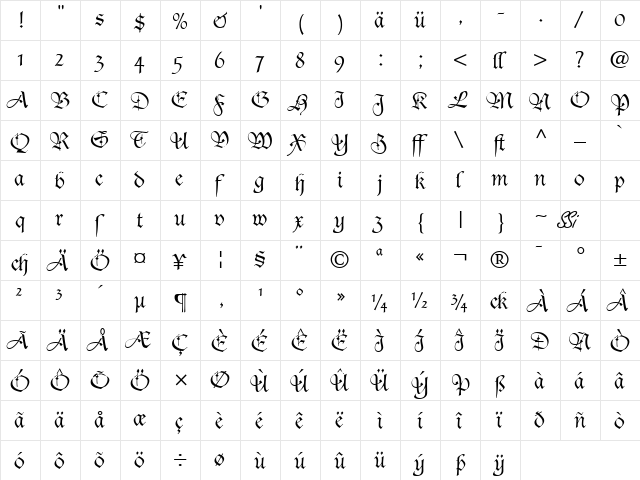
Tudor Script Light SSi Light Font Preview
Design Context for Tudor Script Light SSi Typeface
Tudor Script Light SSi brings a calligraphic fluidity to the page — its connecting strokes and expressive curves give it an unmistakably human quality. Its slender proportions lend an understated elegance to any composition.